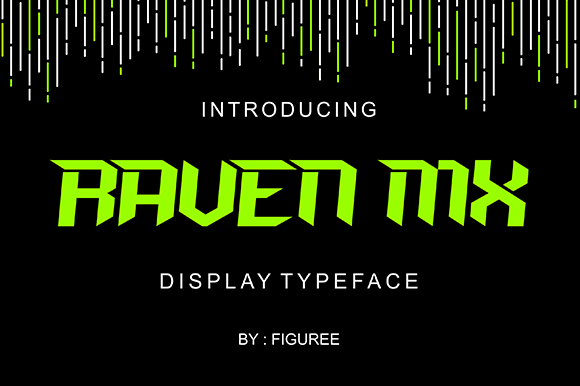
Raven MX Typeface
The RAVEN MX font is best for logo, title, clothing line especialy Moto MX Jersey and more.
| Classification: | Techno / Futuristic Fonts |